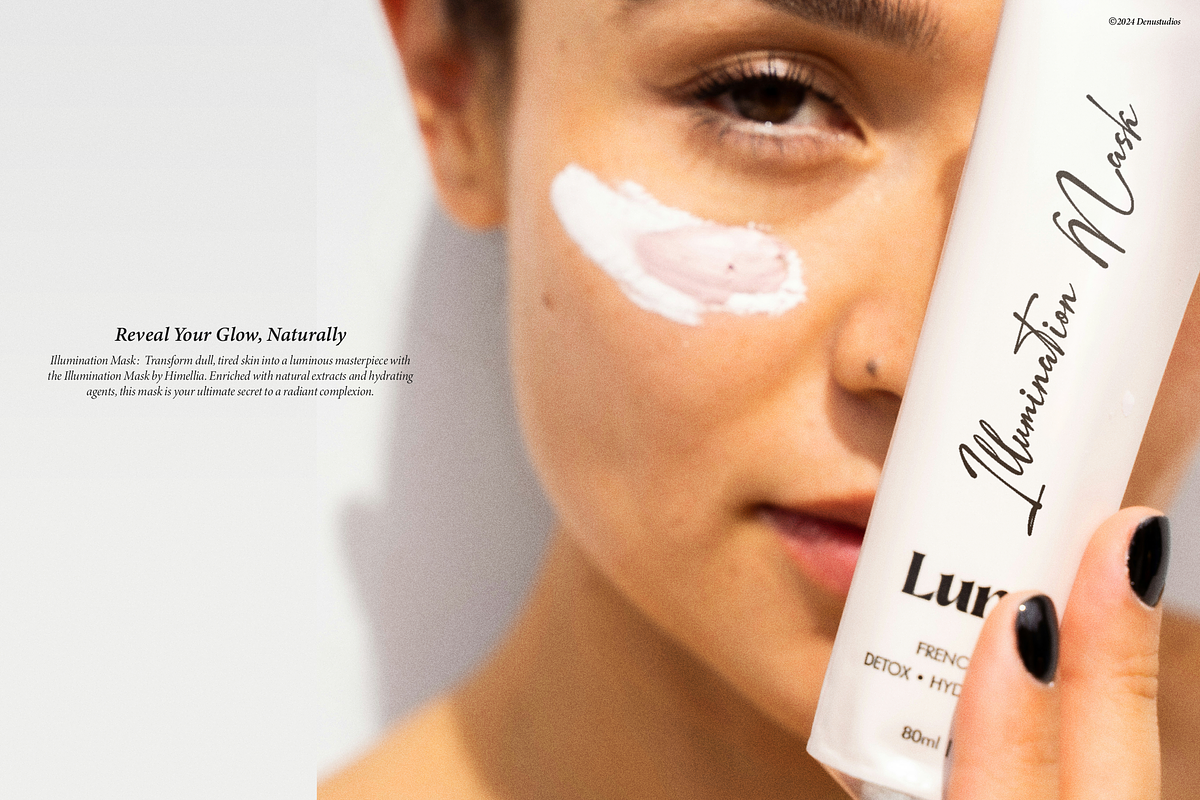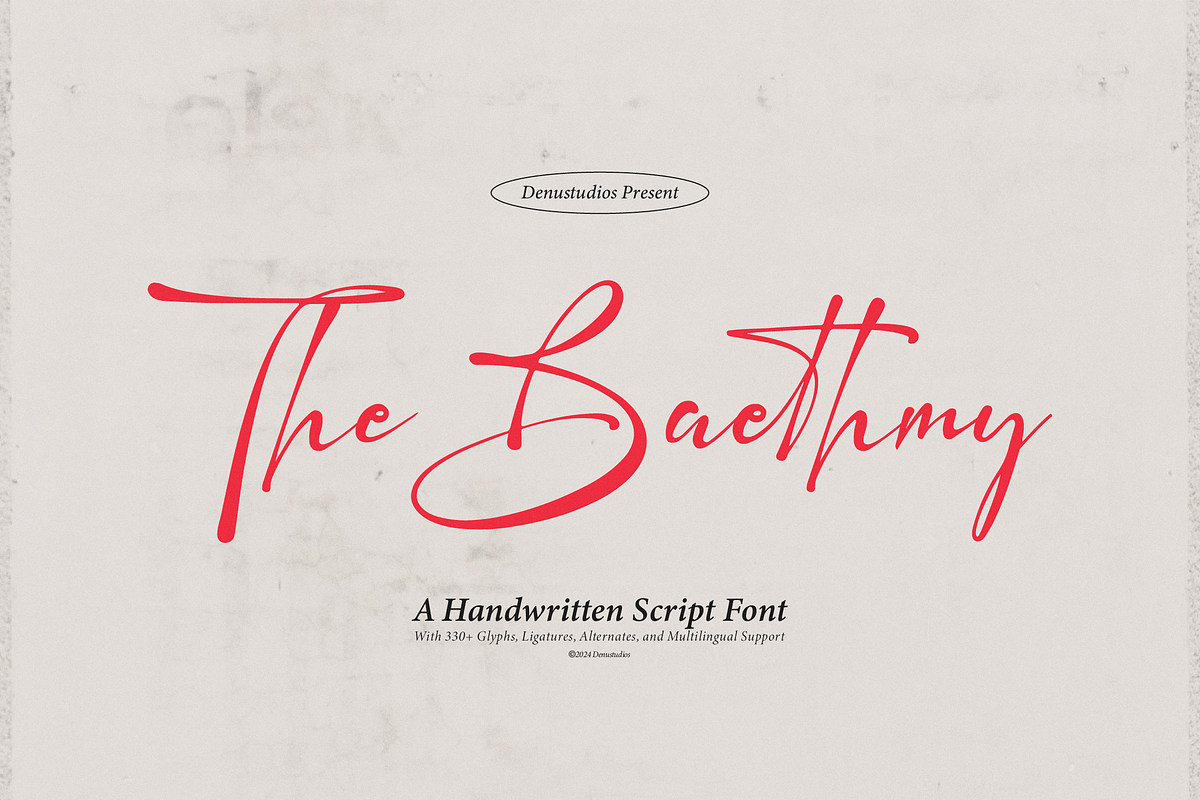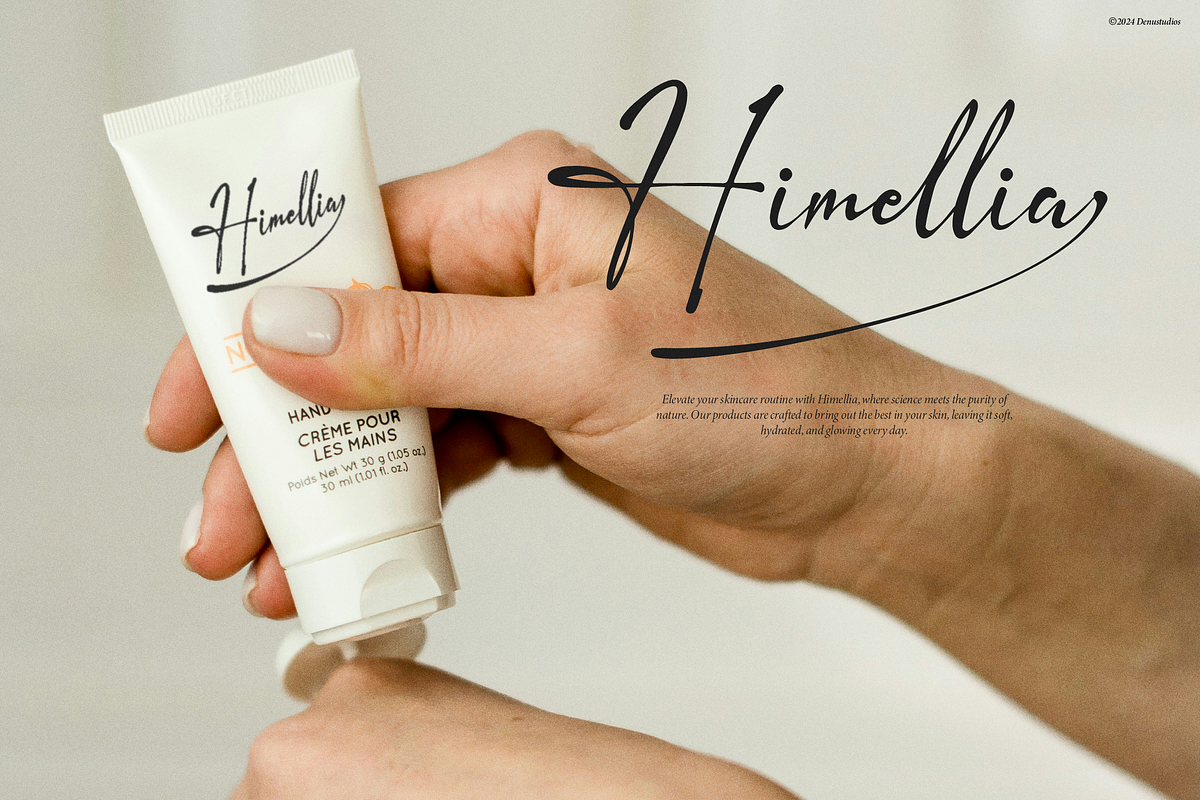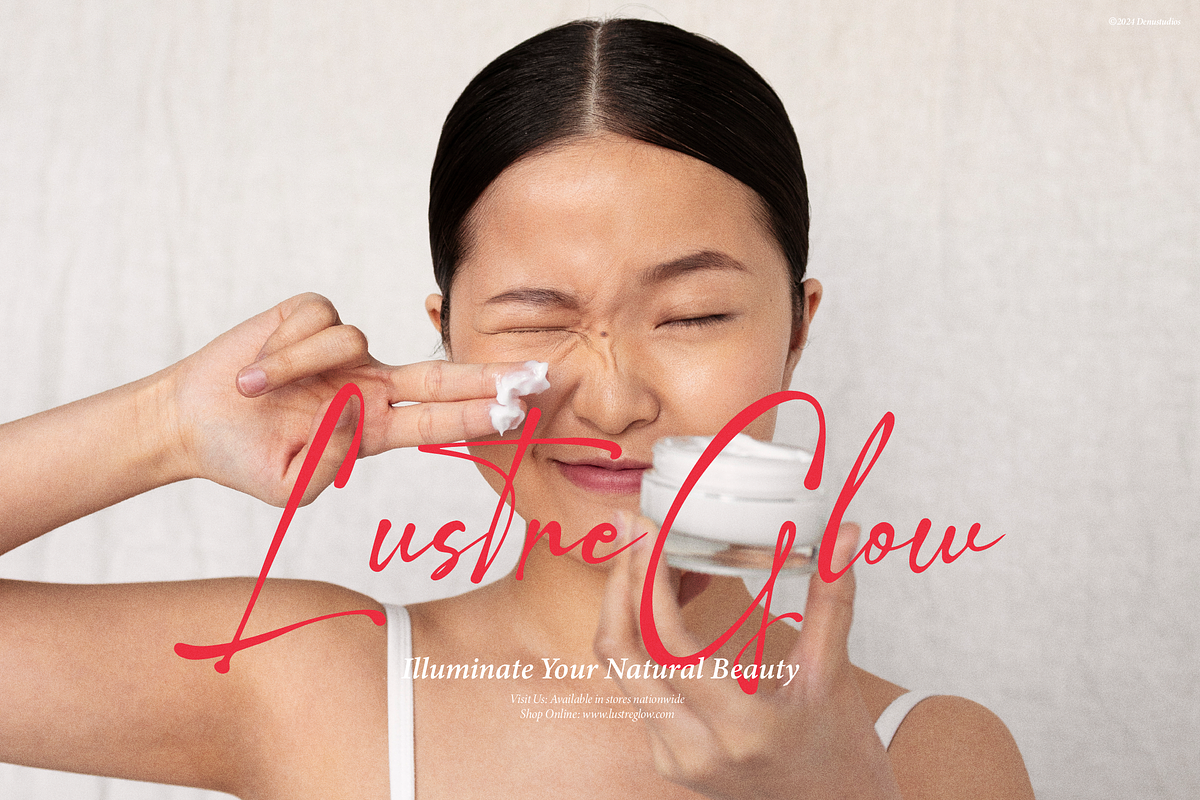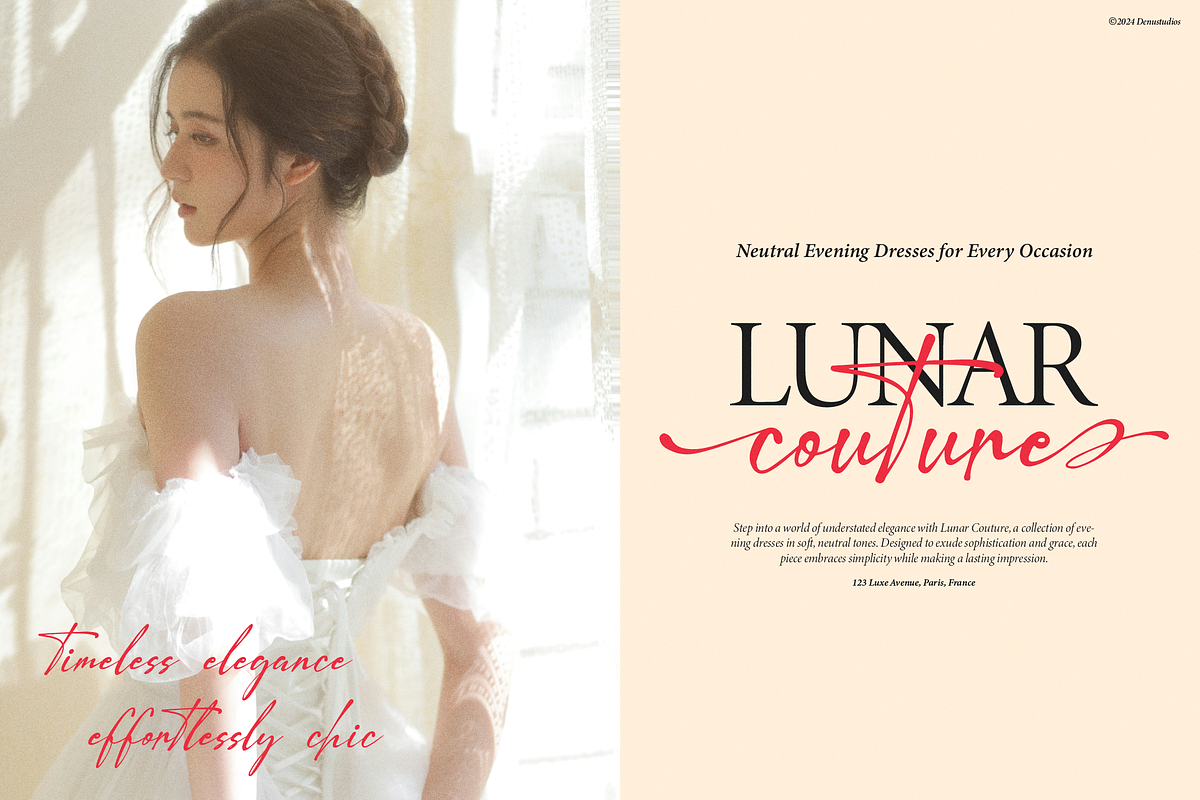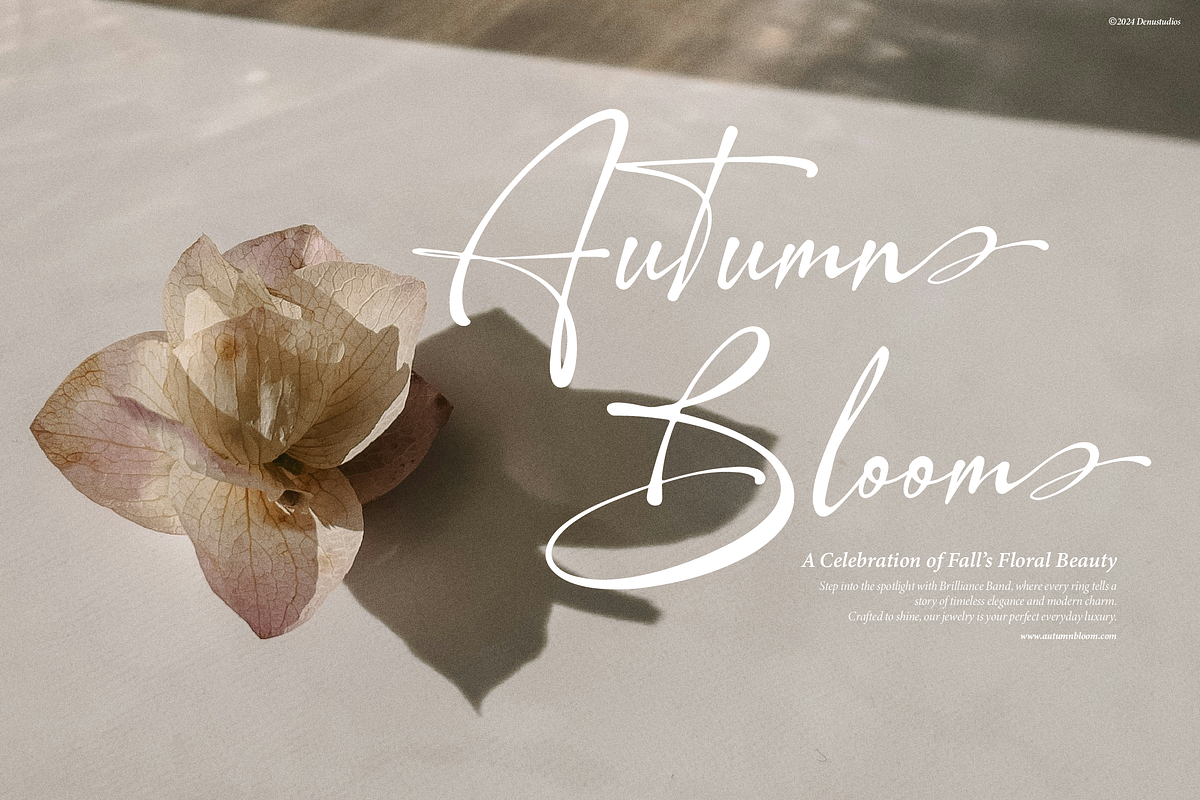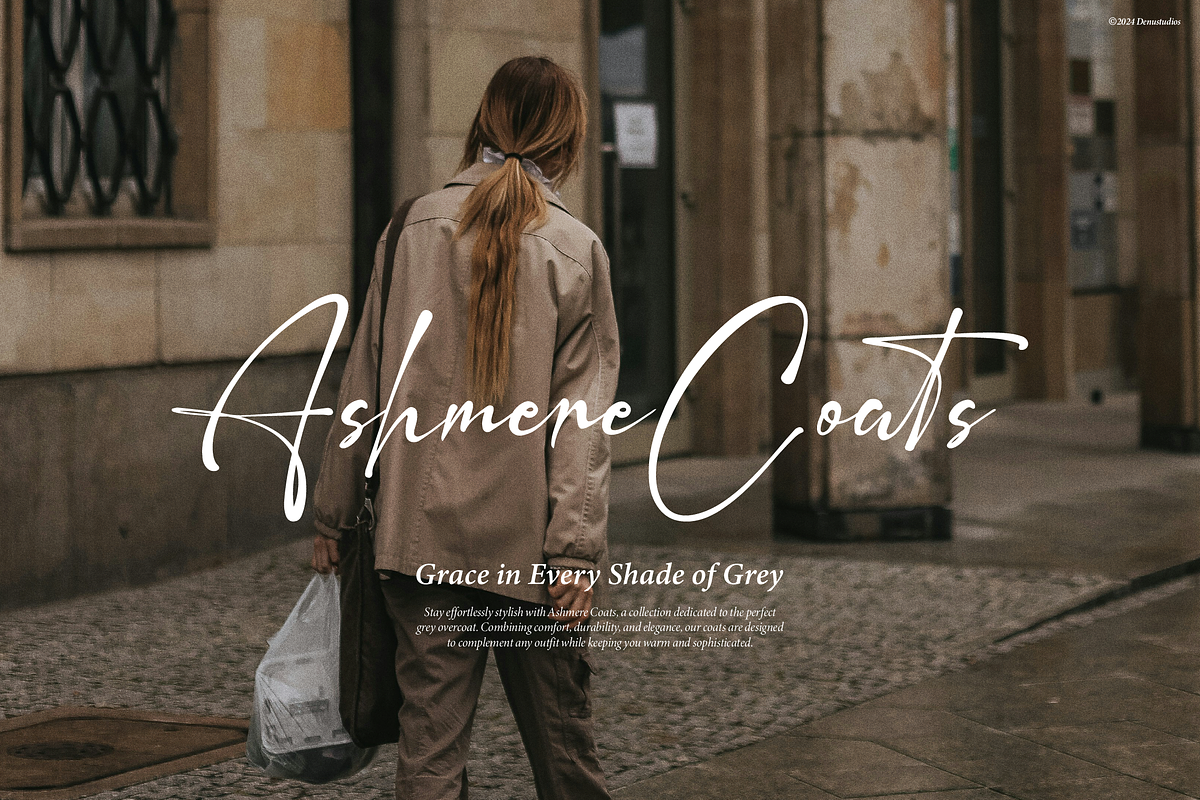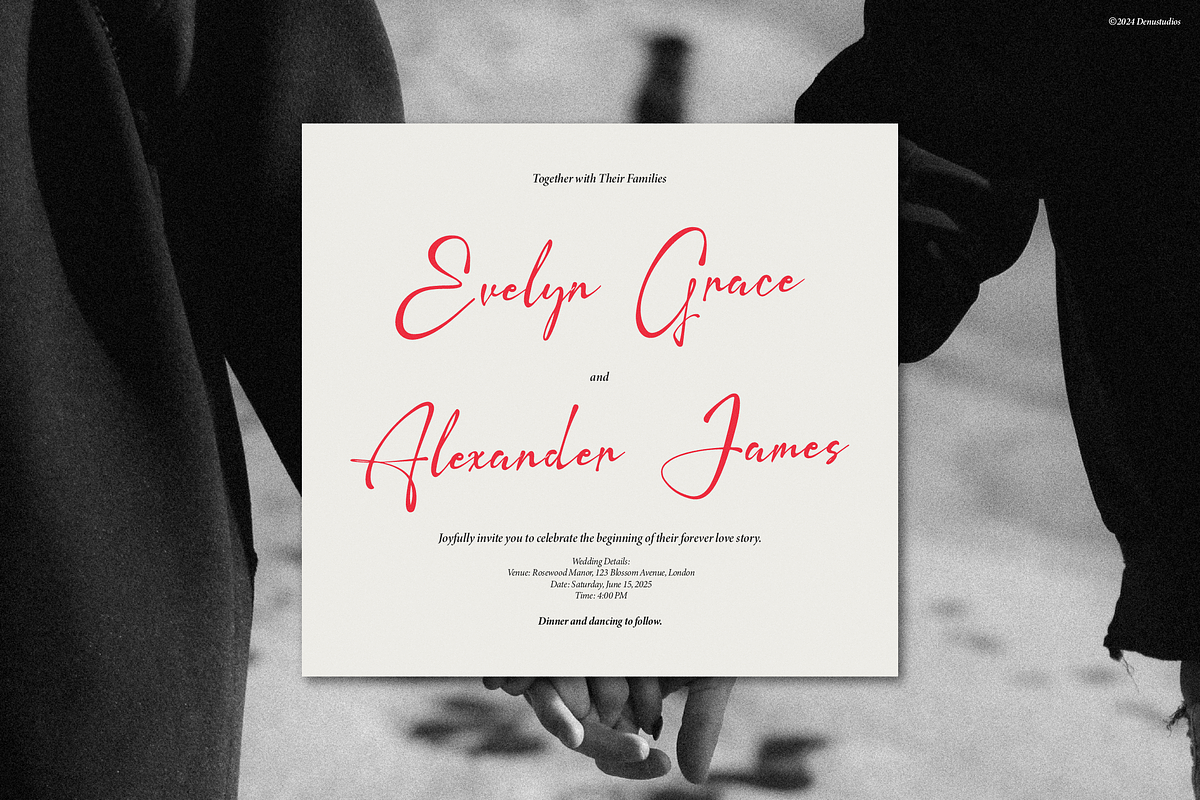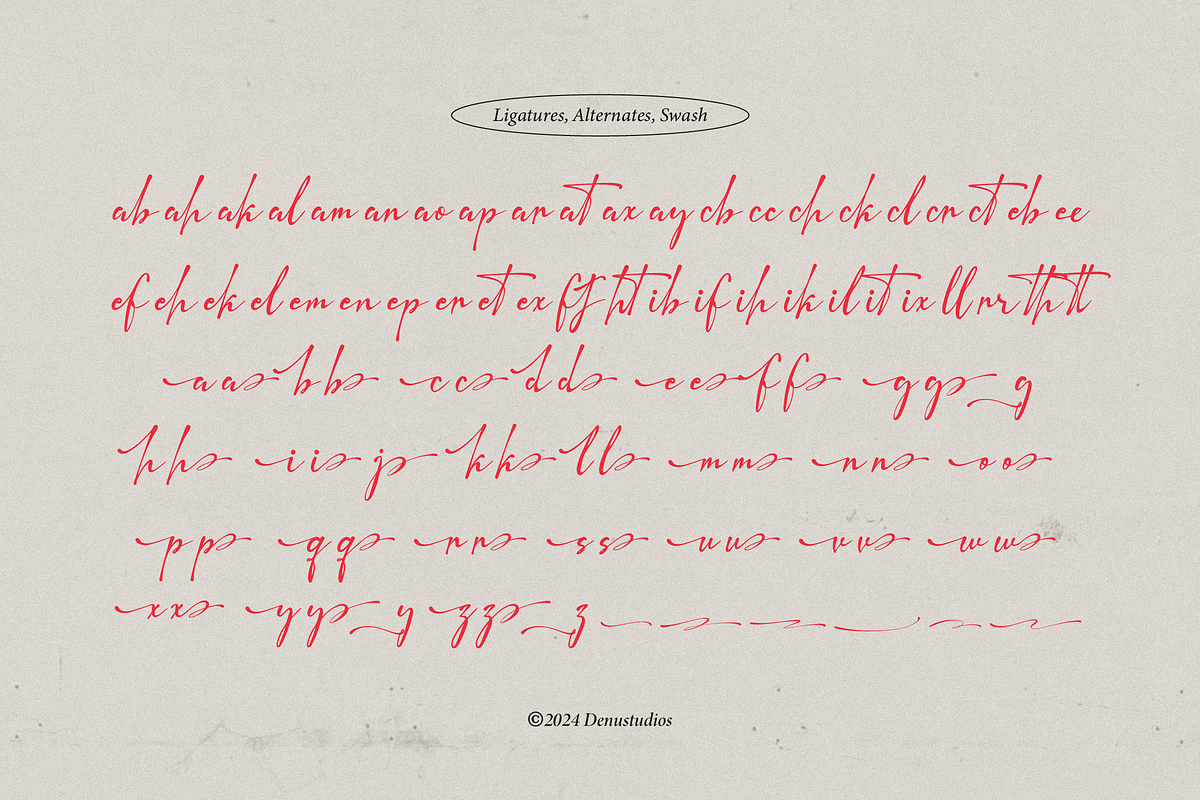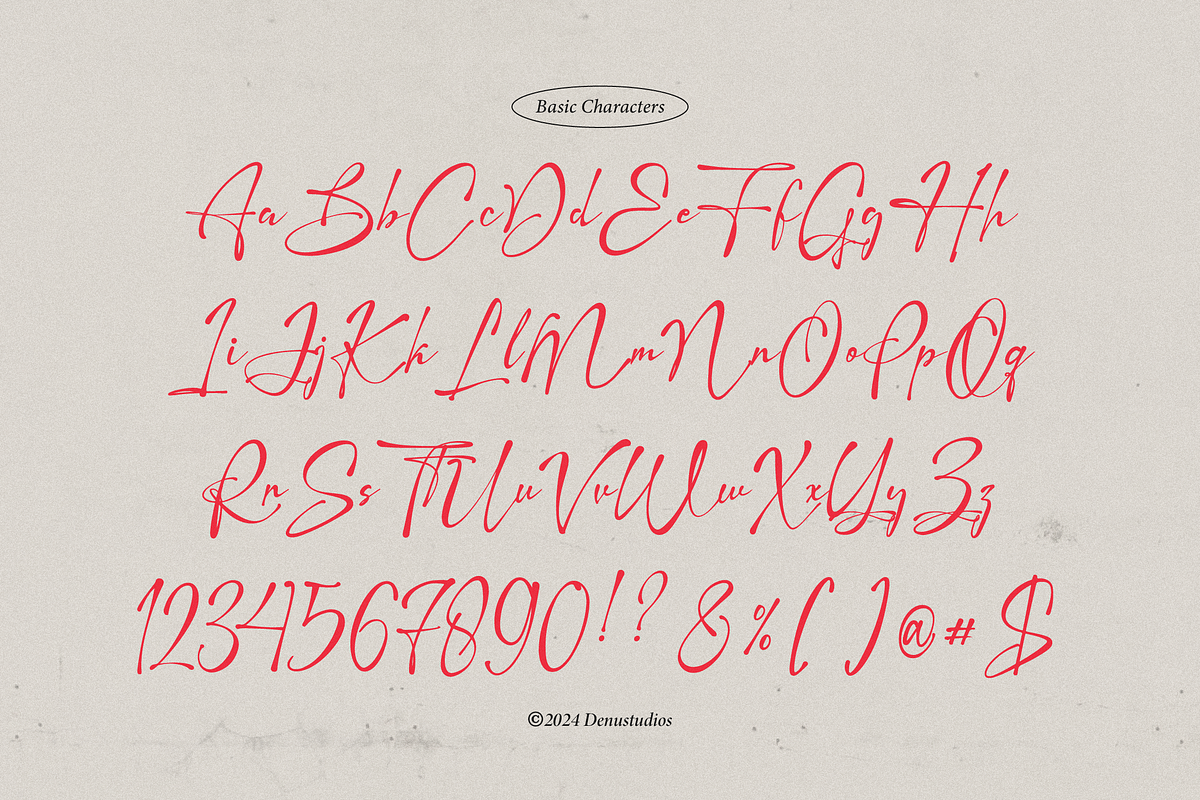
The Baethmy | Handwritten Script
The Baethmy | Handwritten Script, from Denustudios, suitable for any projects such as: logos, branding projects, homeware designs, product packaging, mugs, quotes, posters, shopping bags, t-shirts, book covers, name card, invitation cards, greeting cards, label, photography, watermark, special events, and all your other lovely projects that need a Handwritten Script taste.